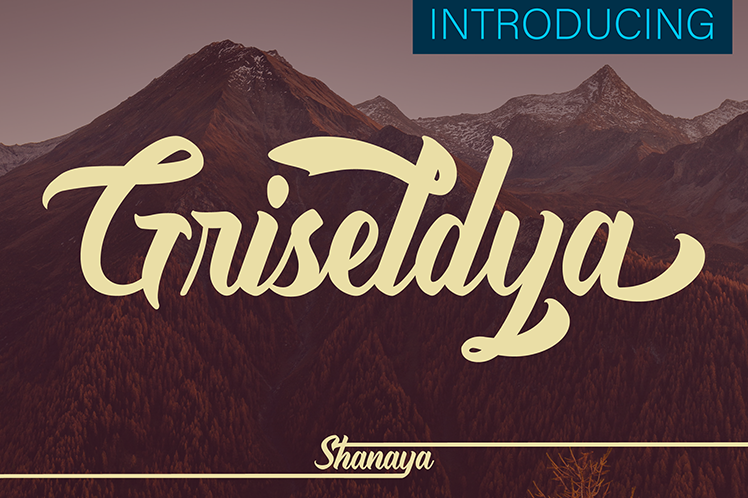
Preview and download Griseldya Font. Created by Shanaya Studio in Script Various styles with Free for personal use license.
if you want to send a donation, please send it to: https://paypal.me/wahysapt If you want to buy this item, please visit: https://fontbundles.net/shanaya Hi .... Let me introduce Griseldya, this font was created to help you design your own brand or your client, and you can also use it to design all graphic things like badges, signs, packaging, headlines, T-shirts / clothing, posters, etc. Griseldya is designed for personal characters such as strong, confident, dynamic, easy to read, etc. Including Files: -Griseldya.otf -Griseldya.ttf Features in fonts -Stylistic Set (SS01, SS02, SS03, SS04) -Lowercase & Upercase -Function -Contextual Alternative (r, s, x, and z) You can get all the glyphs by The Glyphs Panel. Available for: -Adobe Illustrator, -Adobe InDesign, -Adobe Photoshop CC (latest version), -Microsoft Word 2011, -Maps Character (PUA encoded) If you have questions and if you have character letter requests, etc., please send me a message. Note: this font will be updated regularly Thank you and let's make a beautiful experience with us! |